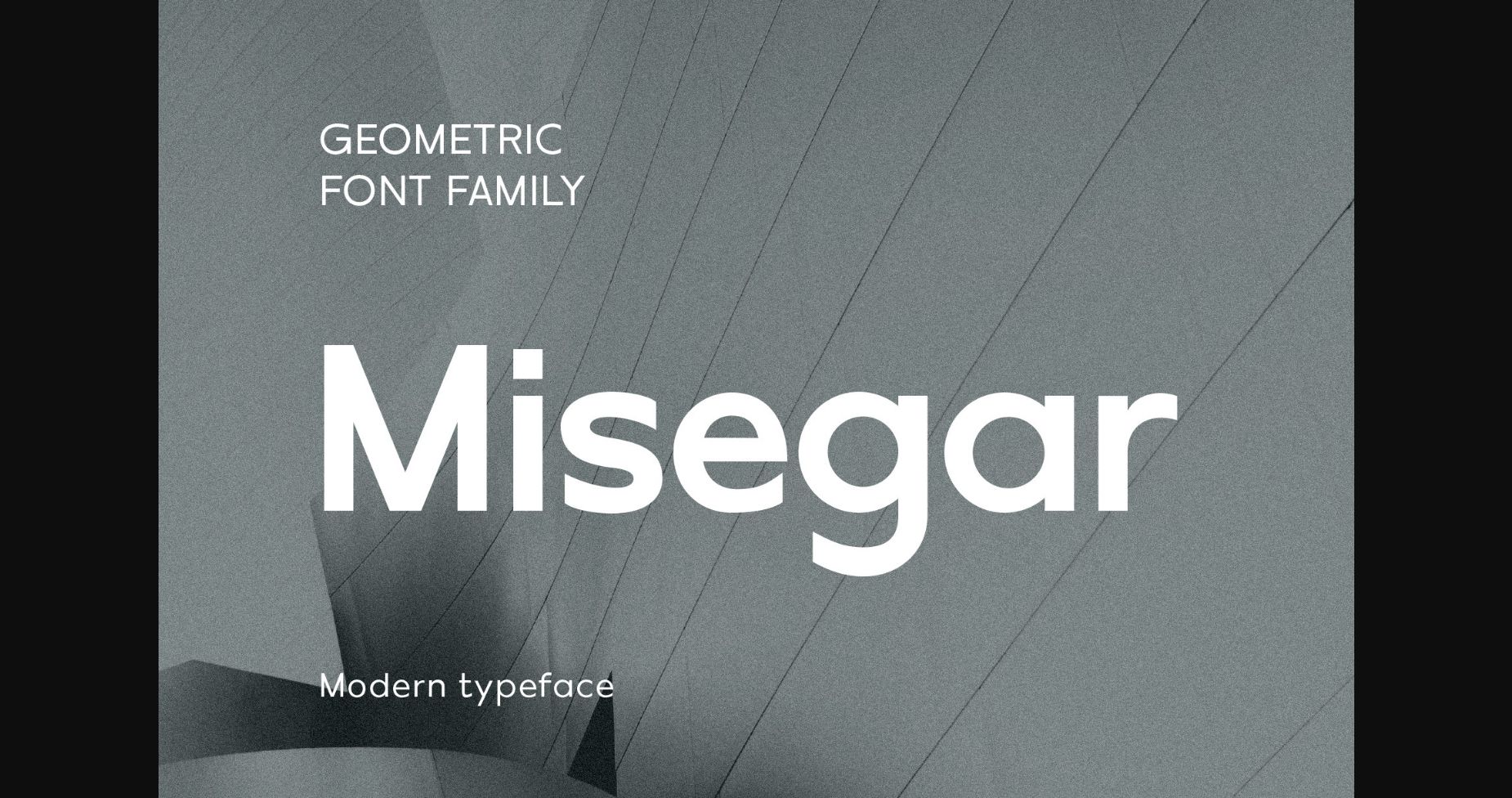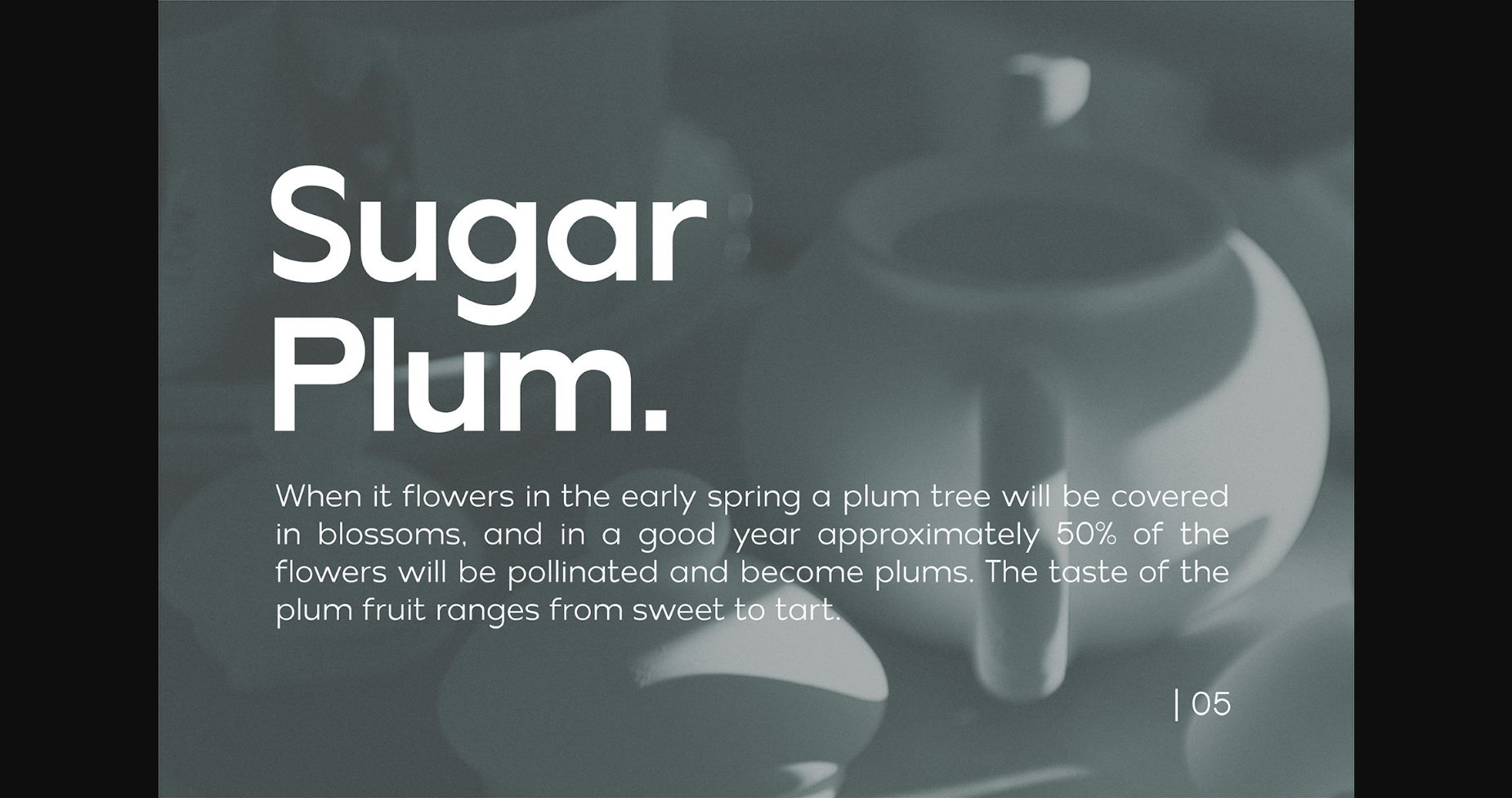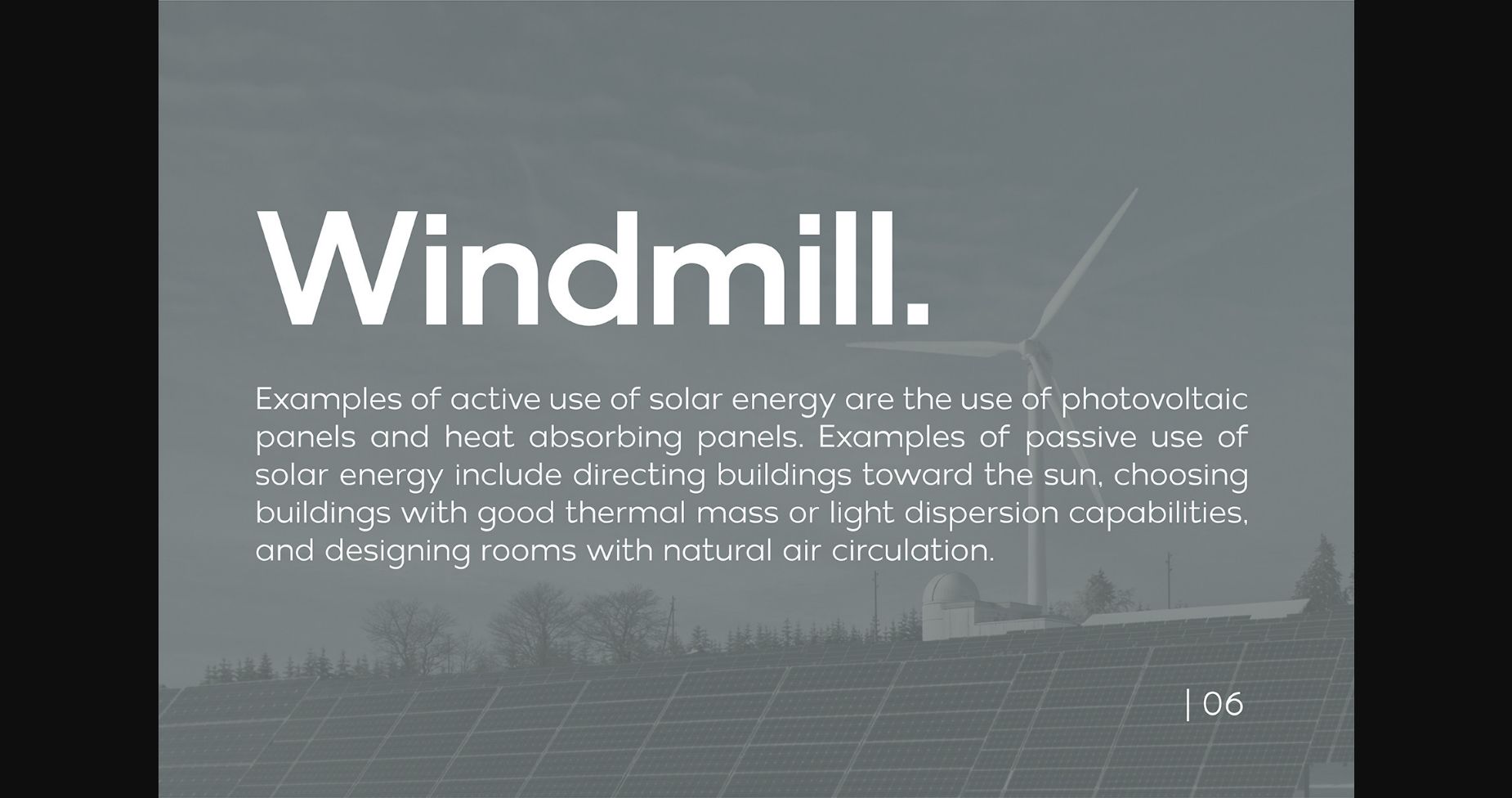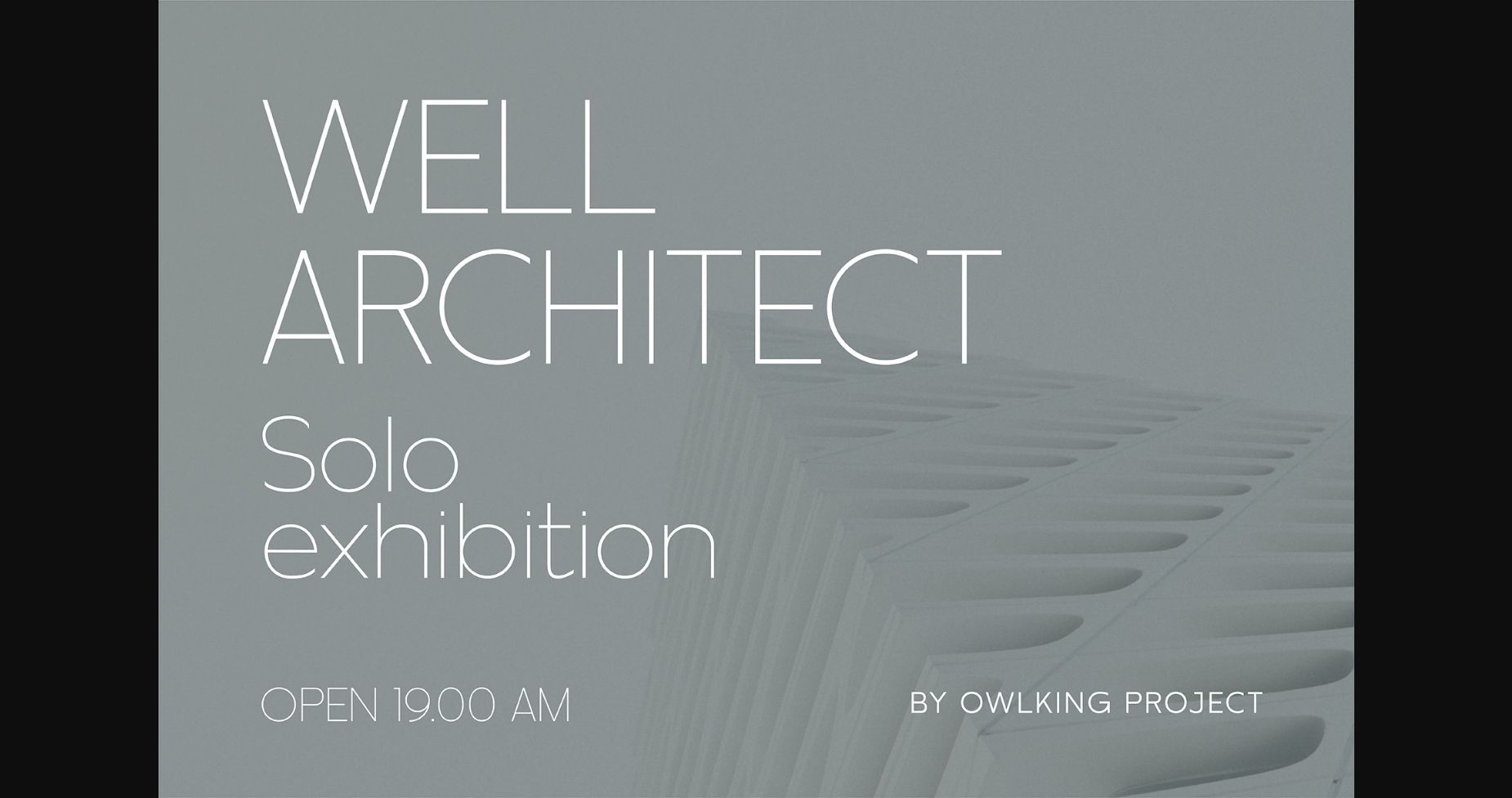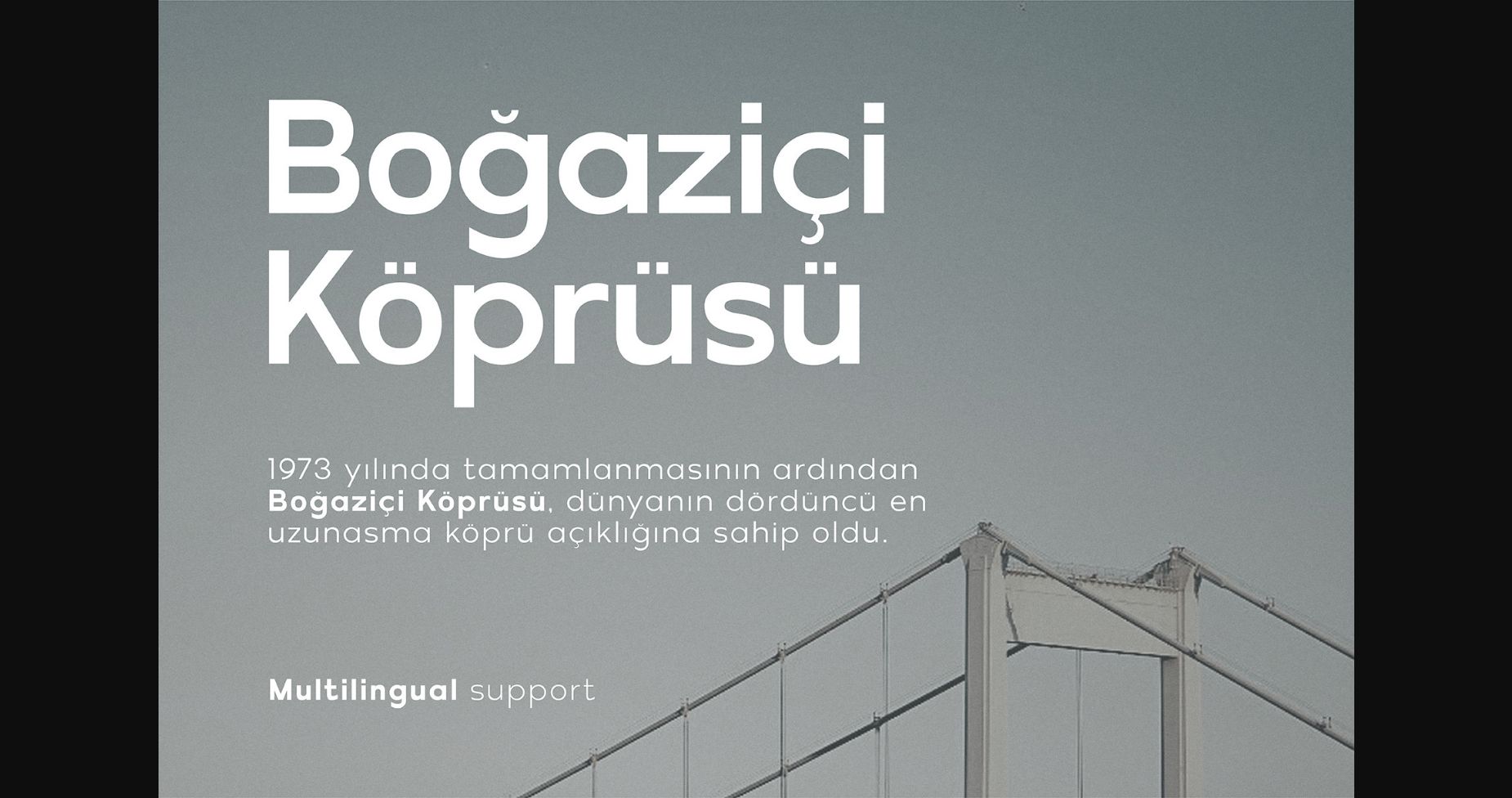
HomeSans Serif FontsMisegar Font Sans Serif Fonts Misegar Font FacebookXPinterestWhatsApp 1 of 8 ... Misegar Font Poster 2... Misegar Font Poster 3... Misegar Font Poster 4... Misegar Font Poster 5... Misegar Font Poster 6... Misegar Font Poster 7... Misegar Font Poster 8... About Misegar Font Misegar is a clean and slim sans serif font. It is perfect for product packaging, branding project, magazine covers, social media, wedding, or just used to express words above the background. DOWNLOAD NOW People also explored Gardens Font Hollow Font Loventia Font Winter Squash Font Farmhouse Christmas Font Morning Routine Magic Shop Font Agady Font Bernadetta Font 385 0 TagsMisegarMisegar Font Previous articleRichards FontNext articleQuickly Work Font LEAVE A REPLY Cancel reply Comment: Please enter your comment! Name:* Please enter your name here Email:* You have entered an incorrect email address! Please enter your email address here Website: Save my name, email, and website in this browser for the next time I comment. Personal Use Free Triangular Curves Personal Use Free Read more about this font Cuttie Personal Use Free Read more about this font Hair Thinned Personal Use Free Read more about this font Lazy Sunday Personal Use Free Read more about this font BLOG Free vs Paid Fonts: Why Investing in Premium Fonts Is Worth It Free vs Paid Fonts: Why Premium Fonts Are Worth It in 2025 The debate of free vs paid fonts continues in the design world. While... Elegant Wedding Invitation Fonts – Handwritten & Script Fonts Modern Sans-Serif Fonts That Brands Love in 2025 Top 7 Google Fonts Alternatives for Faster and Privacy-Friendly Web Design (2025)